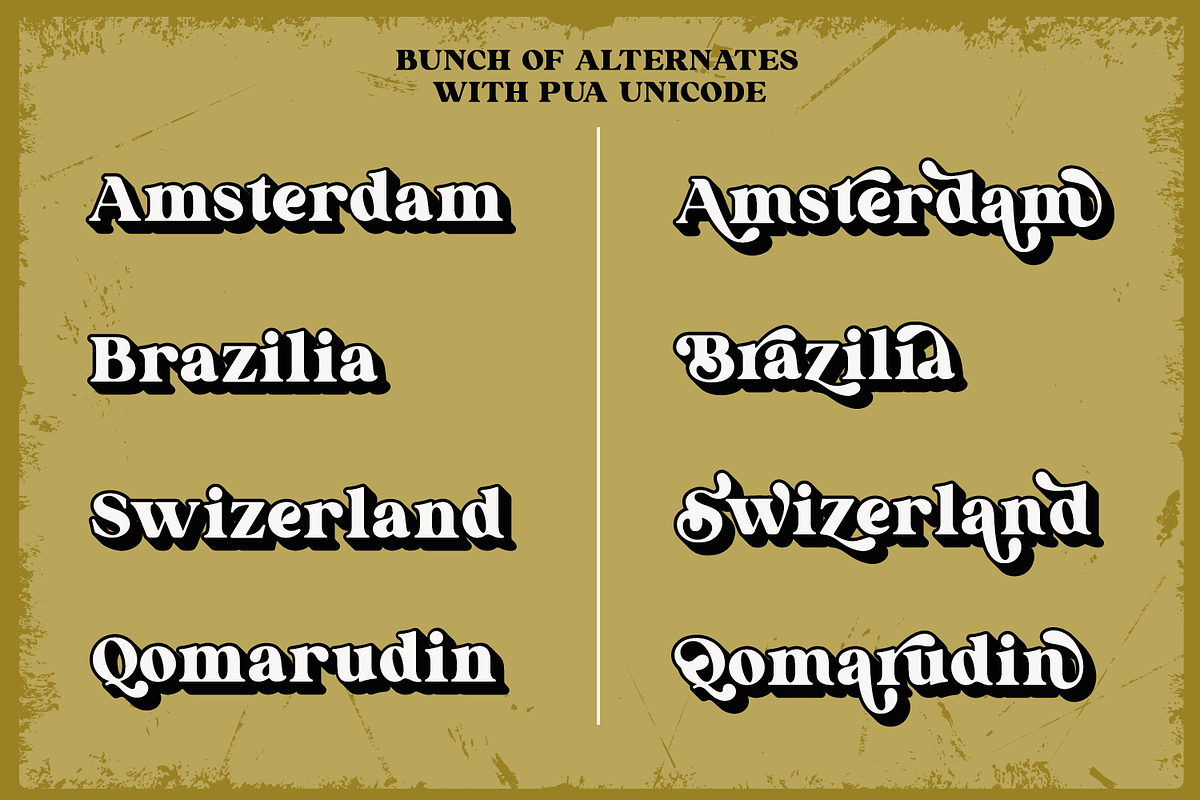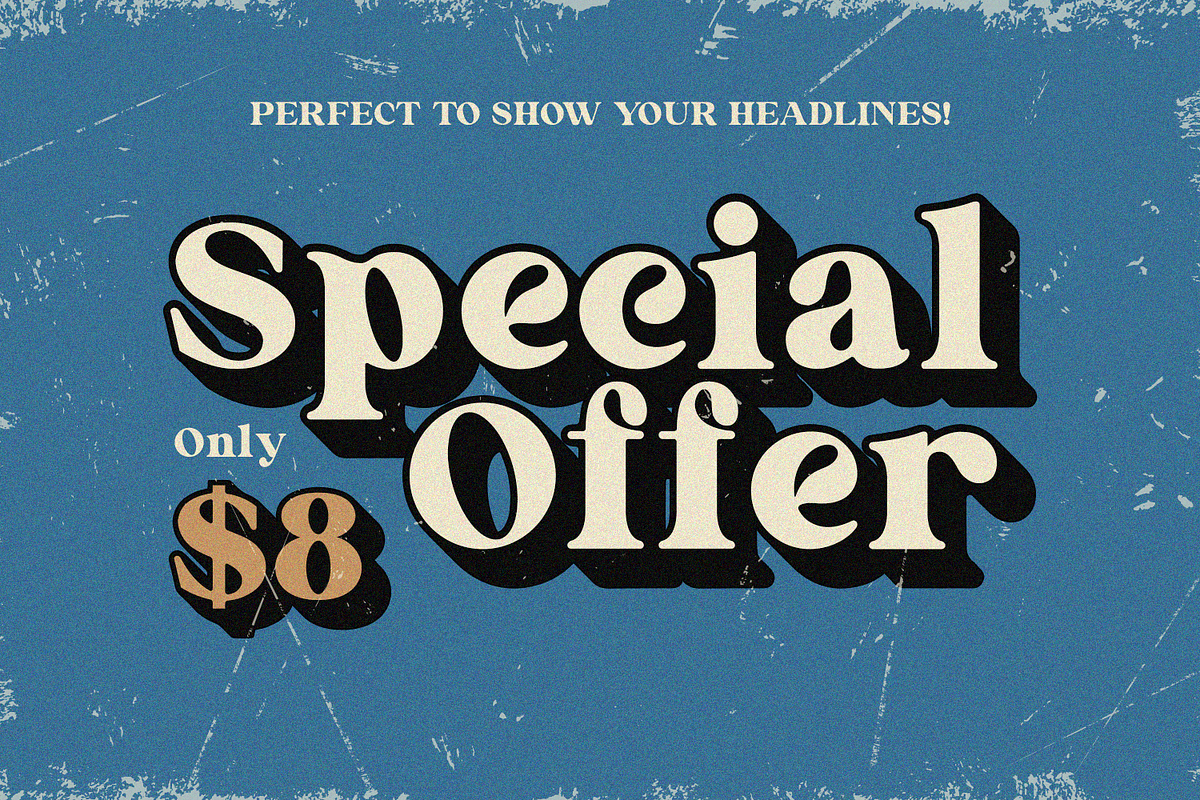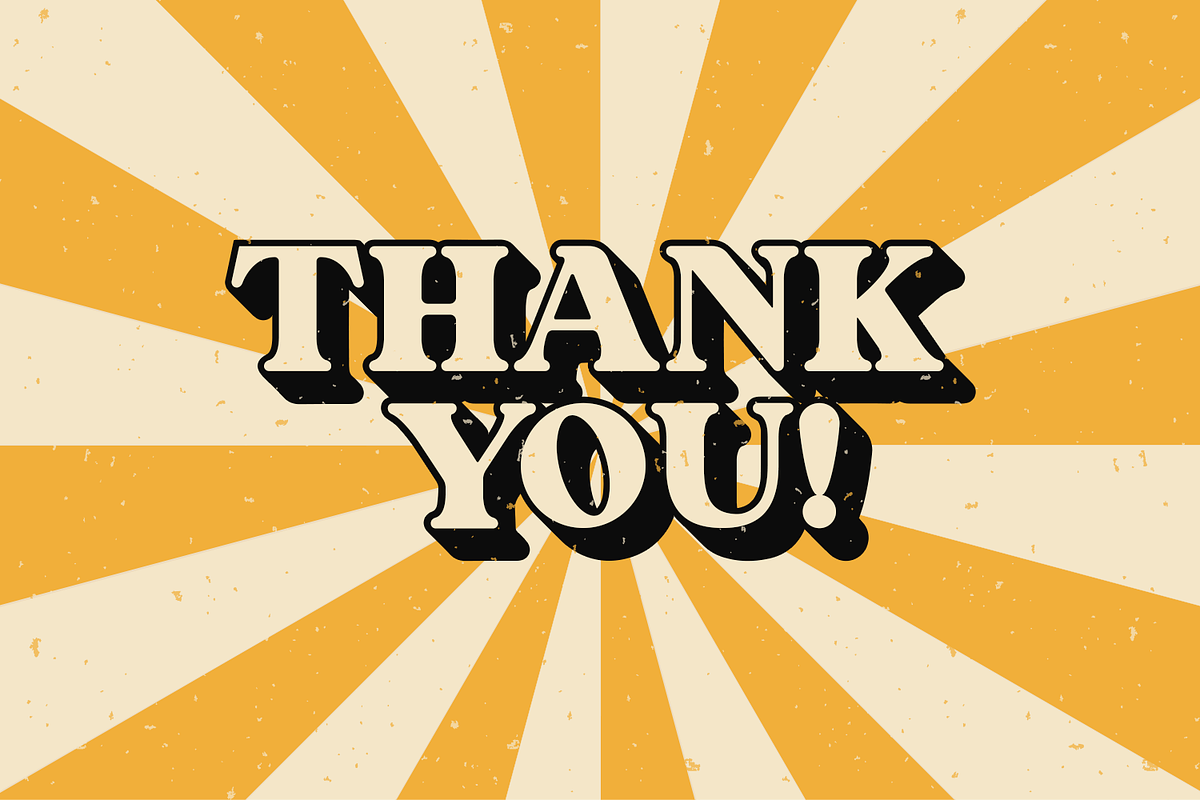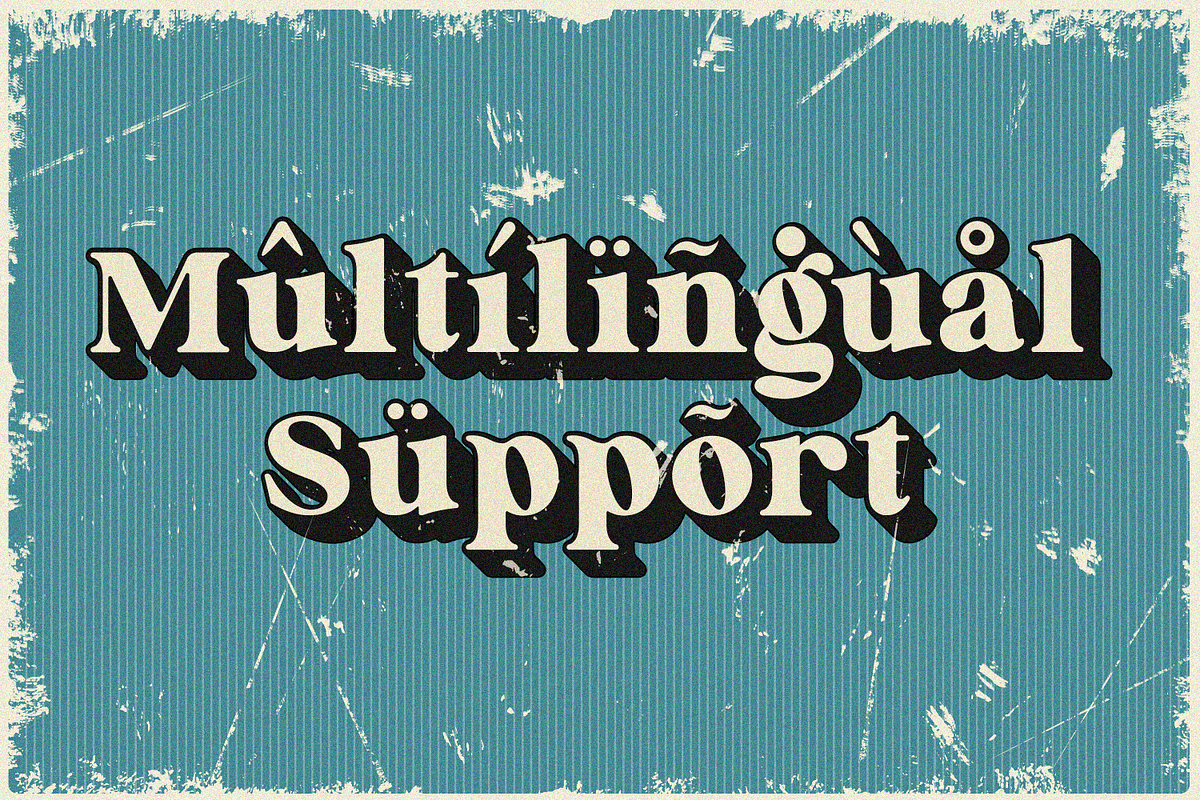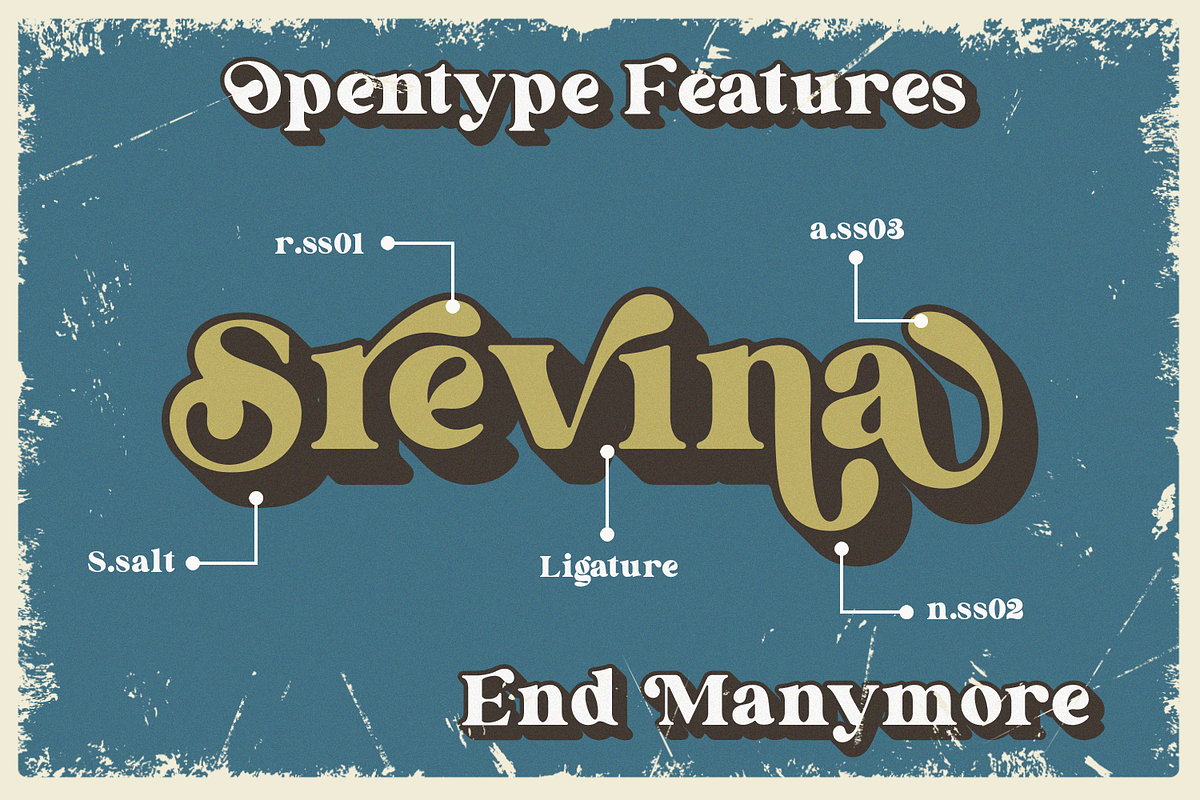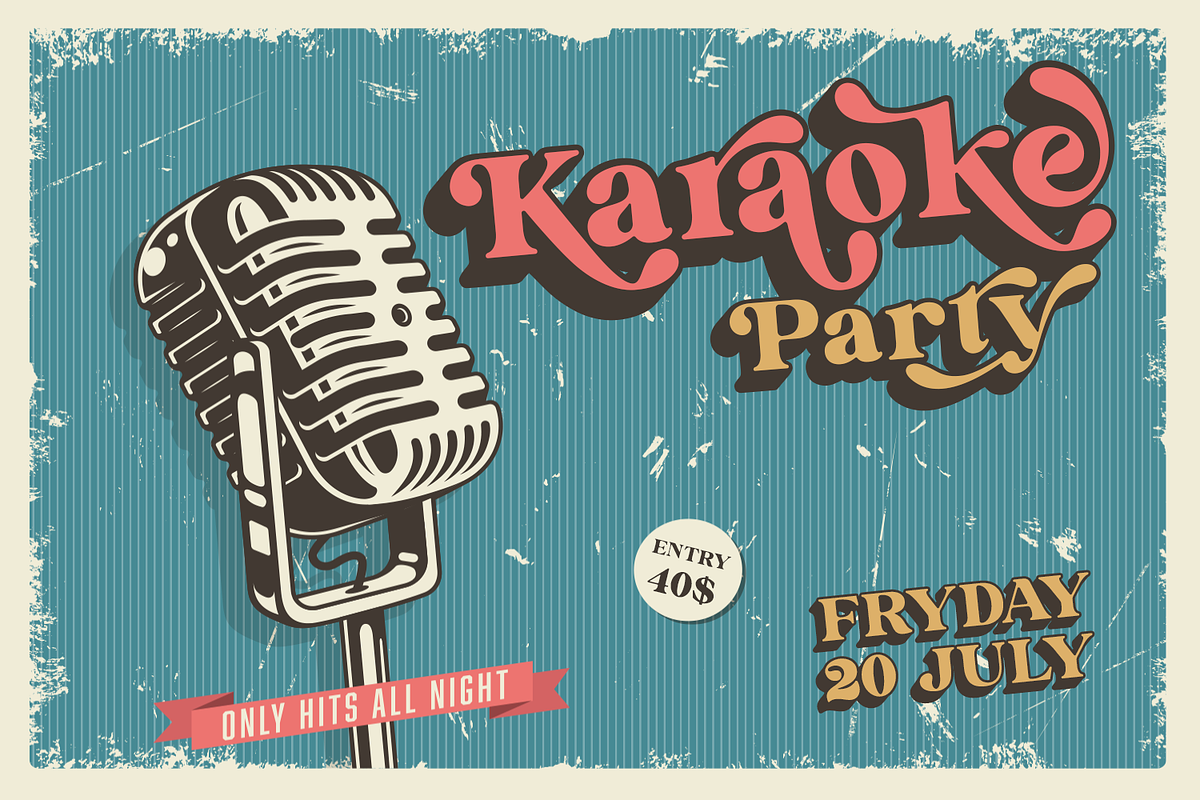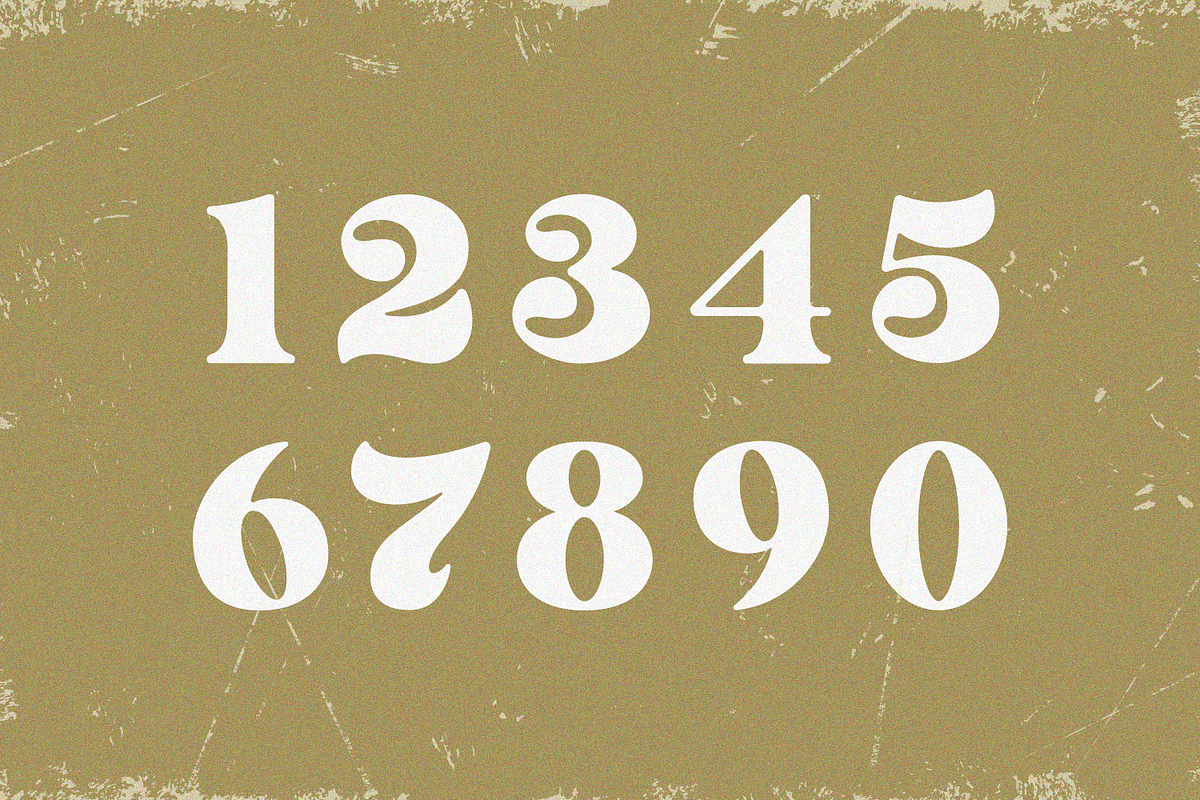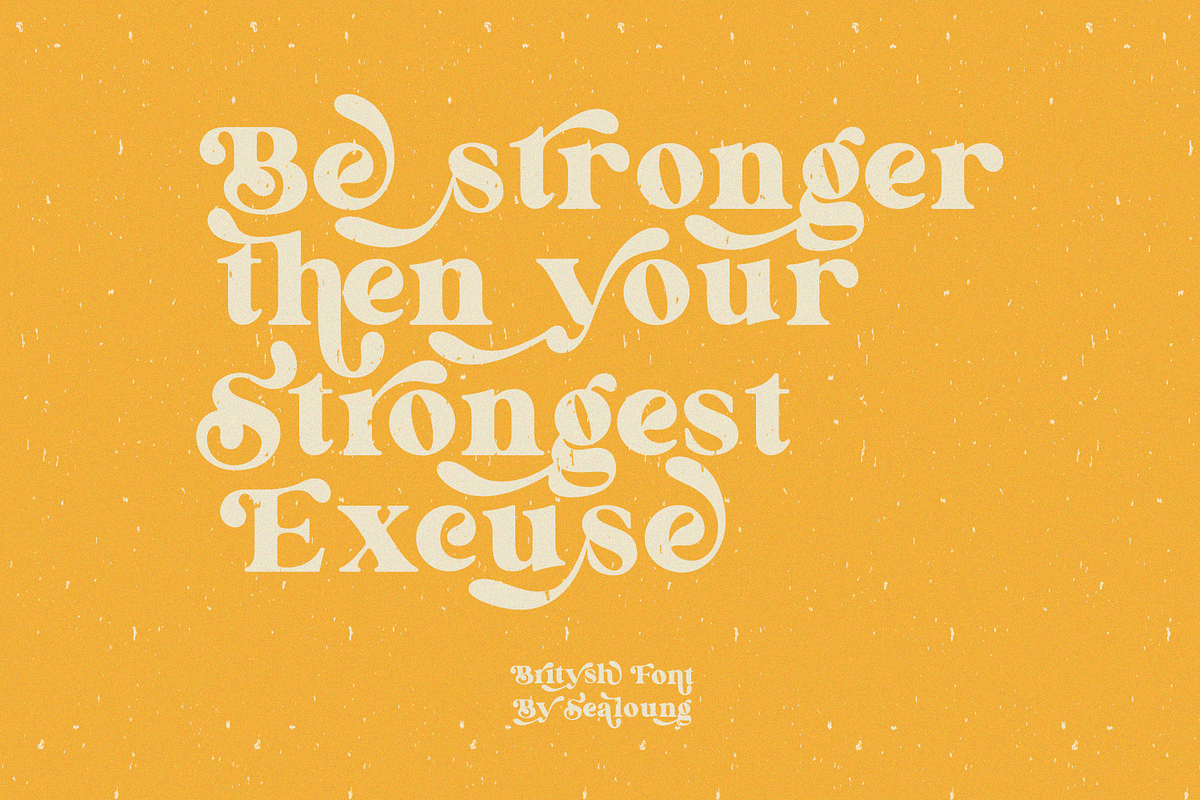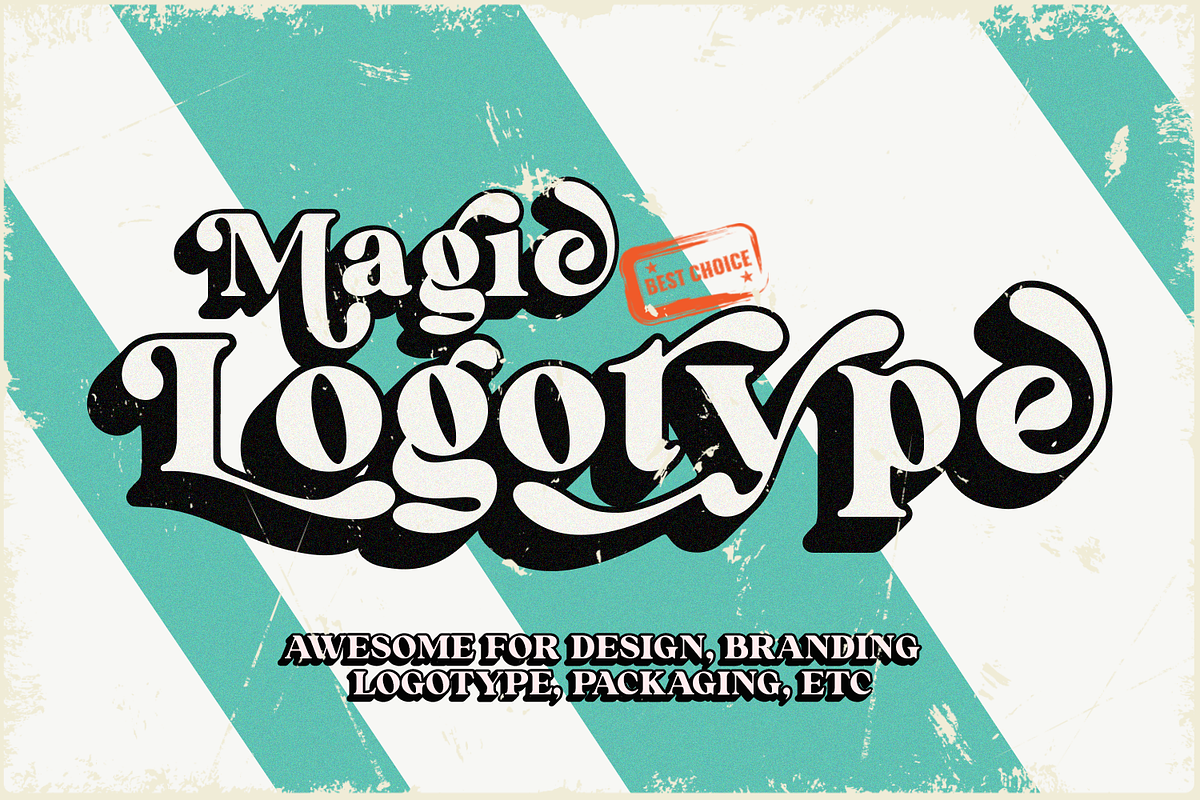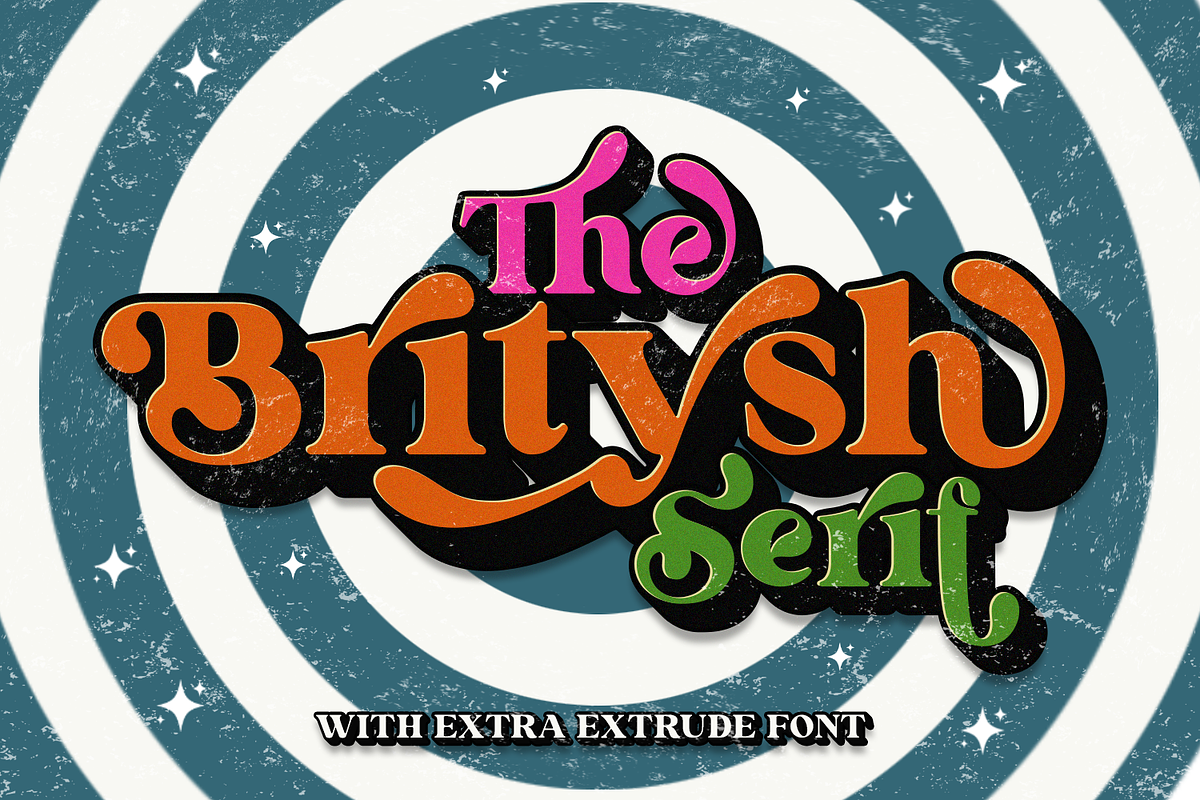
Britysh
Britysh font is a well-balanced contemporary font with a fancy, unique, and versatile vintage serif font that you can combine to get any variations and unique shapes easily just in seconds with stack it. It is a serif display font with moderate contrast that perfect for branding projects, logo, wedding designs, social media posts, advertisements, product packaging, product designs, label, photography, watermark, invitation, stationery, and any projects, it makes with a high level of legibility.